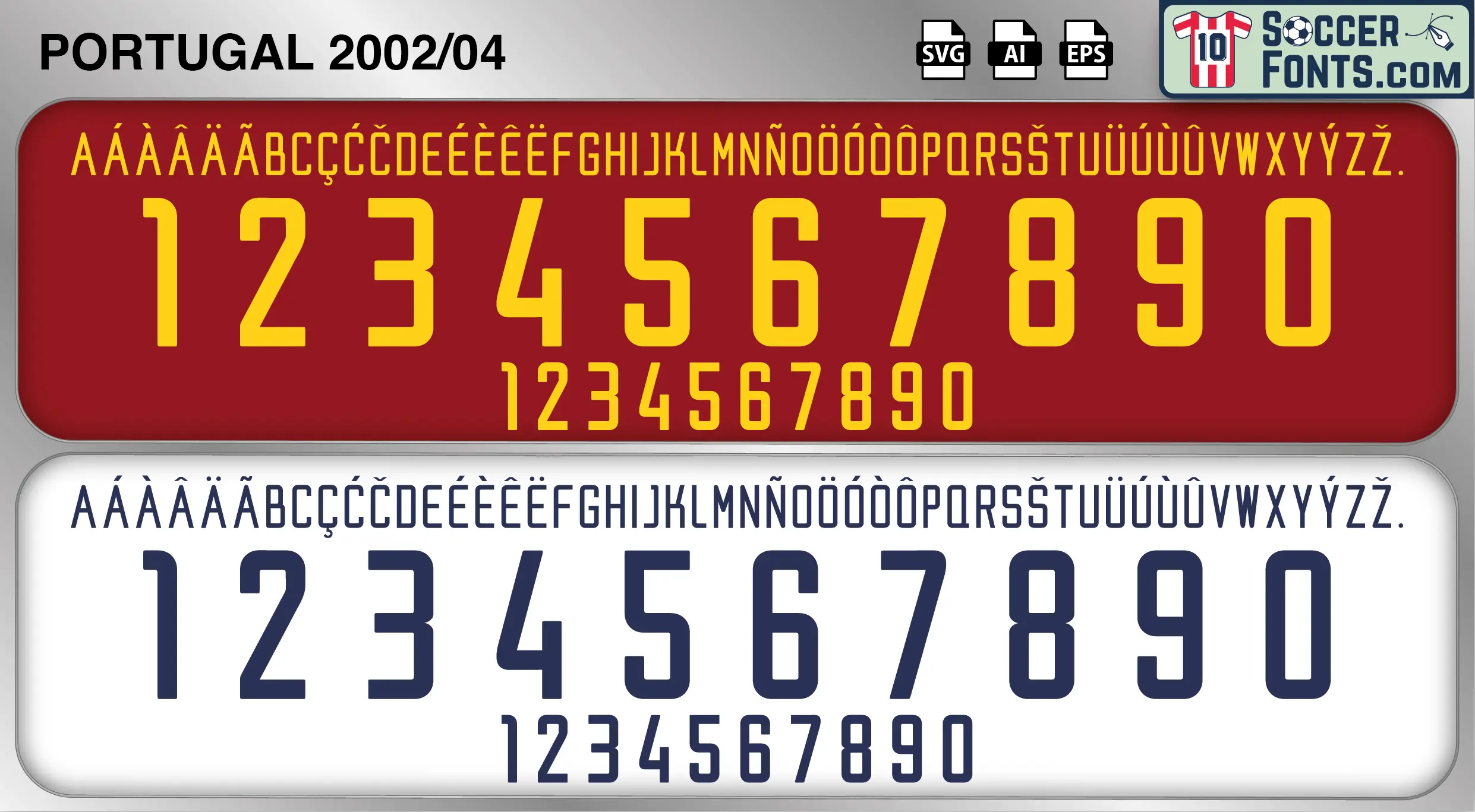
Portugal 2002-04 Font
The Portugal 2002-04 font is an editable soccer jersey lettering design in vector format inspired by the Portugal kit style used during the 2002-04 football seasons. This football font artwork is prepared for football shirt recreations, custom jersey projects, football kit mockups and sports graphic design workflows.
The 2002-04 period began with Portugal’s participation at the 2002 FIFA World Cup and continued into one of the most important eras in the history of Portuguese football. Although the World Cup campaign proved disappointing, the national team quickly regrouped and focused on preparations for UEFA EURO 2004, a tournament Portugal would host on home soil. The squad featured iconic players such as Luís Figo, Rui Costa, Fernando Couto, Pauleta and Nuno Gomes, while a young Cristiano Ronaldo made his first appearances for the senior national team. Portuguese football was entering a period of transformation, with experienced leaders guiding a talented new generation capable of competing at the highest level.
The Portugal 2002-04 font became associated with the road to UEFA EURO 2004 and the emergence of players who would define Portuguese football for years to come. Expectations across the country were immense as supporters anticipated a major tournament hosted in Portugal. The Portugal 2002-04 font reflects a period of transition, ambition and national excitement, connecting the final years of the Figo-Rui Costa generation with the beginning of Cristiano Ronaldo’s international career. Portugal shirts from this era remain highly collectible because of their connection with one of the most significant turning points in the history of the national team and the buildup to a memorable home European Championship.